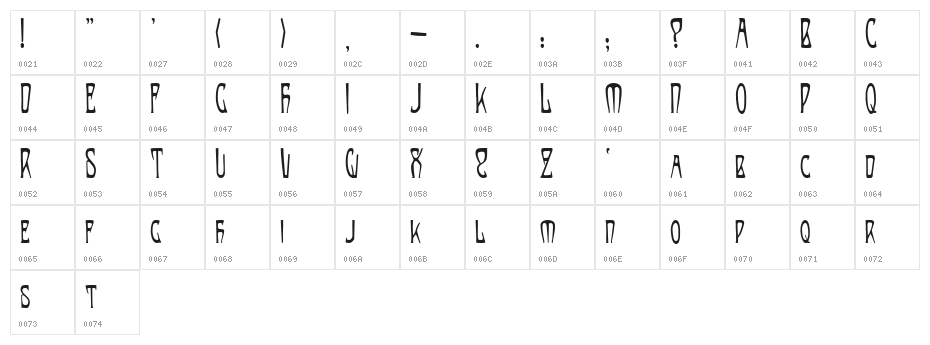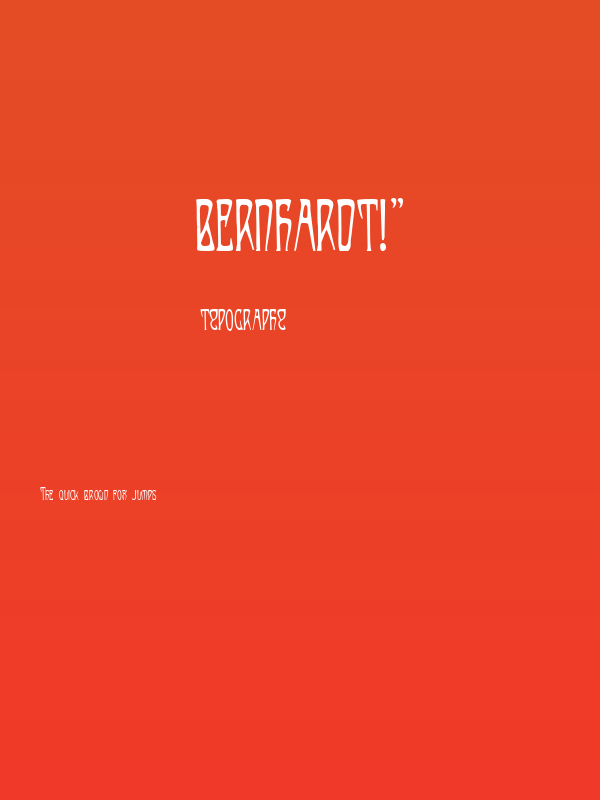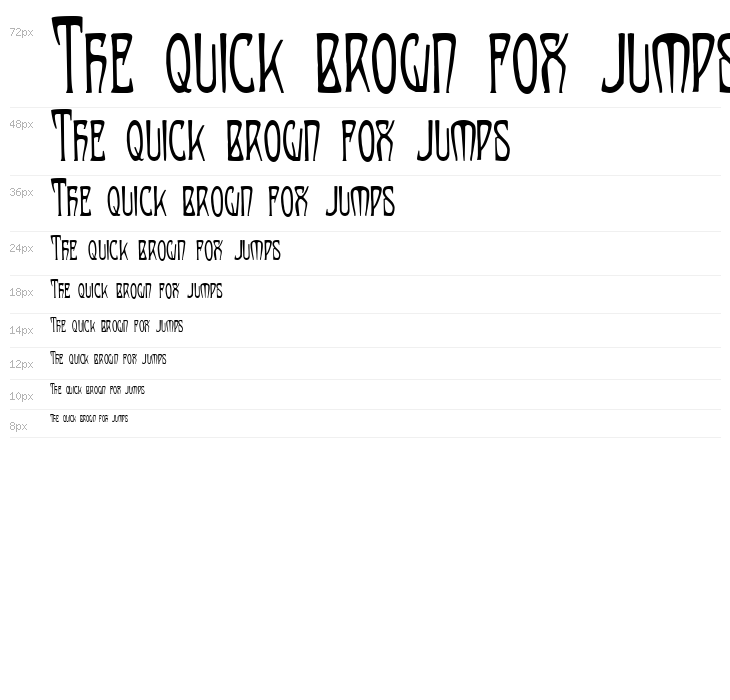
Bernhardt!" Font
Bernhardt!" Description
This font features a unique and artistic design with elongated and slightly curved strokes, giving it a whimsical and playful appearance. The uppercase letters are tall and narrow, with varying stroke thickness that adds a dynamic feel. The lowercase letters maintain a similar style, ensuring consistency across the typeface. The numbers are bold and distinctive, matching the overall aesthetic. Special characters are creatively designed, enhancing the font's decorative appeal. This font stands out with its artistic flair, making it suitable for creative and expressive projects.
| Proposed Projects | Ideal for creative projects such as posters, invitations, and artistic branding. |